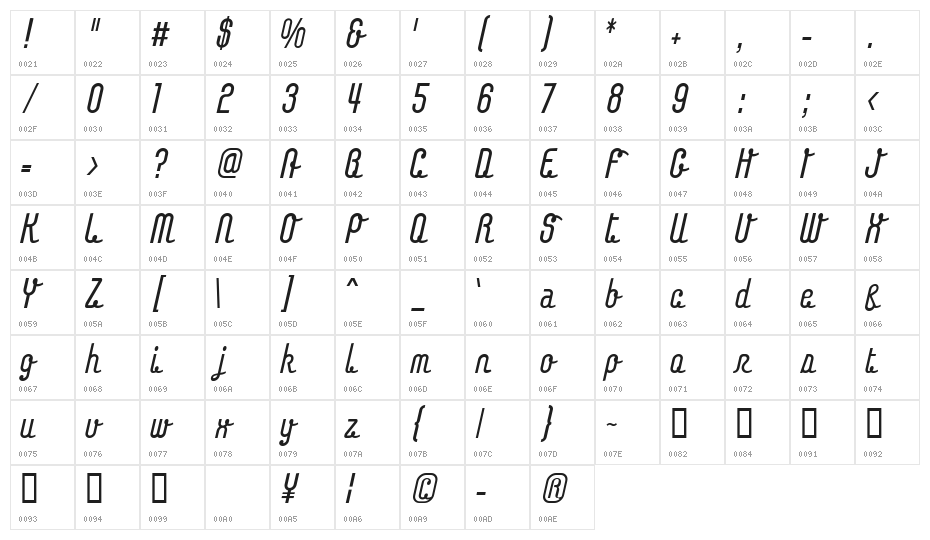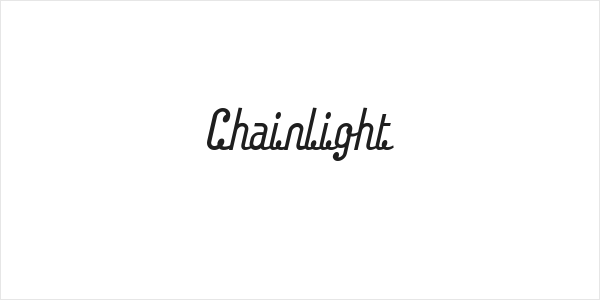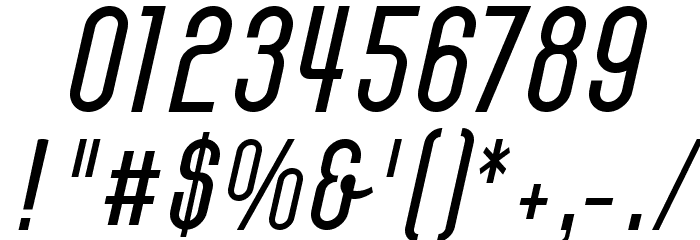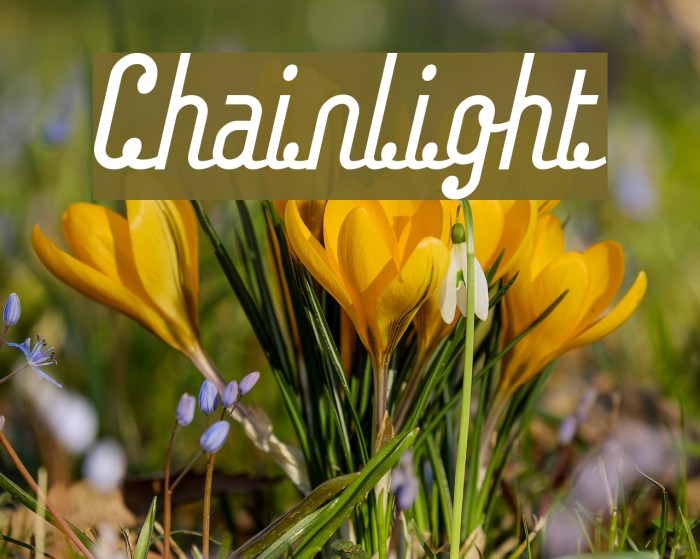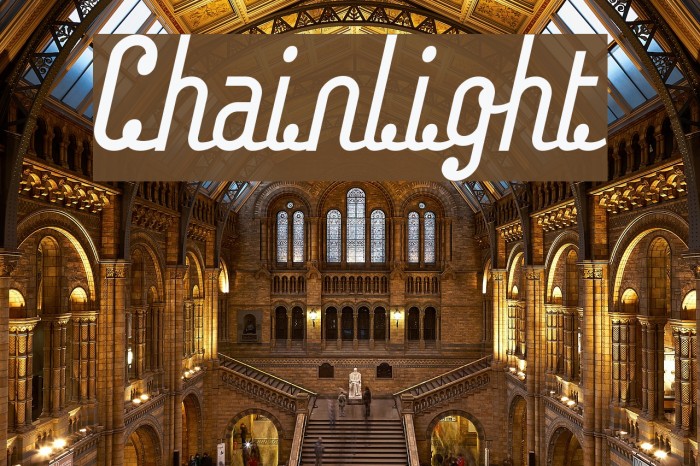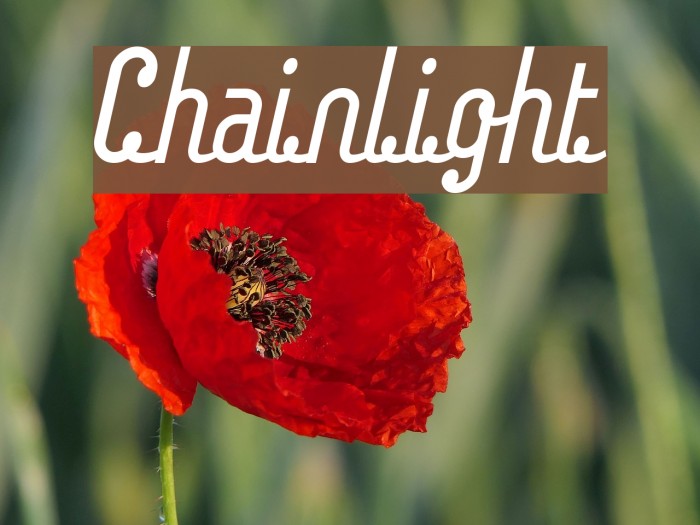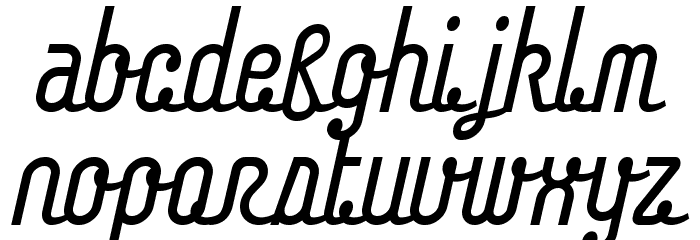
Chainlight Font
Chainlight Description
This font features a unique, flowing script style with a modern twist. The characters are interconnected, creating a continuous, chain-like appearance. The uppercase letters maintain a consistent height, while the lowercase letters exhibit a playful, slightly slanted design. Numbers and special characters are seamlessly integrated, maintaining the font's cohesive look. The strokes are uniform in thickness, providing a clean and polished finish. This font is ideal for projects that require a touch of elegance and modernity, such as branding, invitations, and creative design work.
| Use Case | Logos, Headlines, Invitations |
| Proposed Projects | Ideal for branding, invitations, creative design projects, and elegant displays. |